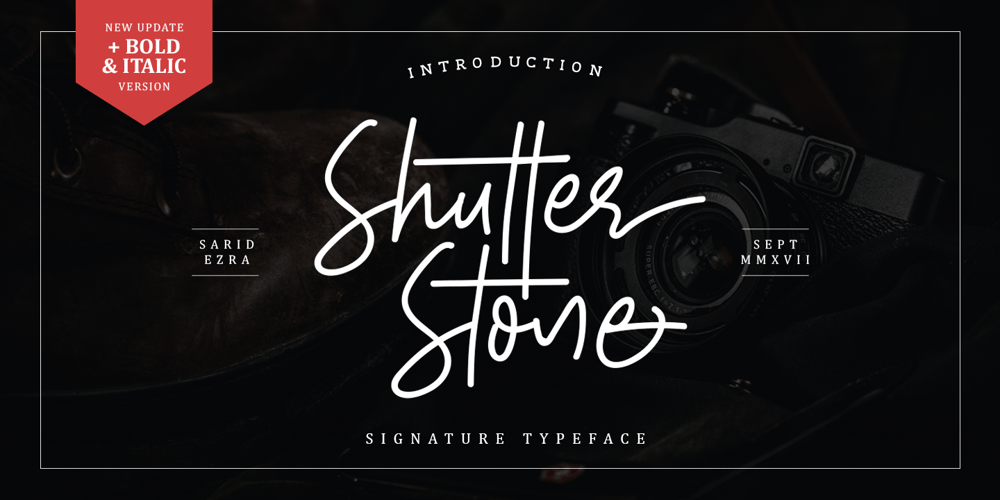
Shutter Stone Font Family was designed by Sarid Ezra and published by Sarid Ezra. Shutter Stone contains 3 styles and family package options. Introducing, Shutter Stone. Another Signature Script Font for you!Shutter Stone is handwritten font that contain stylistic alternate, swash, etc to create your own customised signature. This font is also support multi language. Also Support PUA.Thank You!